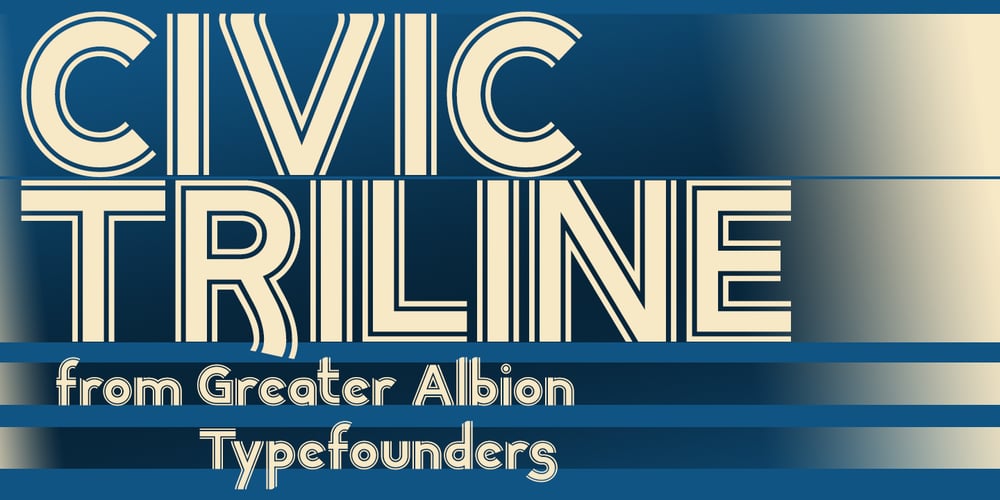
Civic Triline
Civic Triline font
Civic Triline Font Family was designed by Paul James Lloyd and published by Greater Albion Typefounders. Civic Triline contains 1 styles and family package options. Civic Triline was inspired by a beautifully lucid (and hand lettered) example of municipal signage. It is a clear and easy to read sans serif display face, constructed of one thick and two thin lines. Civic Triline is an ideal typeface for making stylish signage or lettering posters with a modern yet distinctive look.